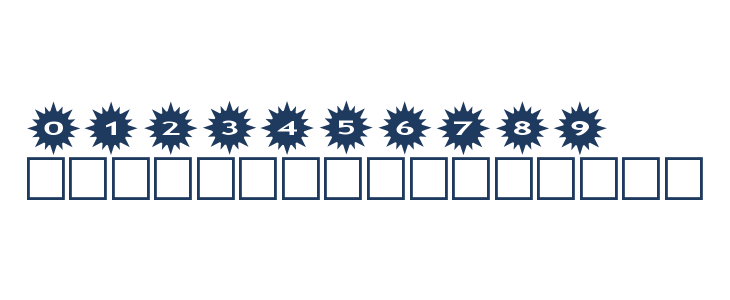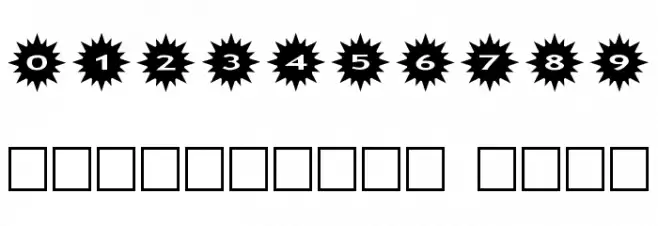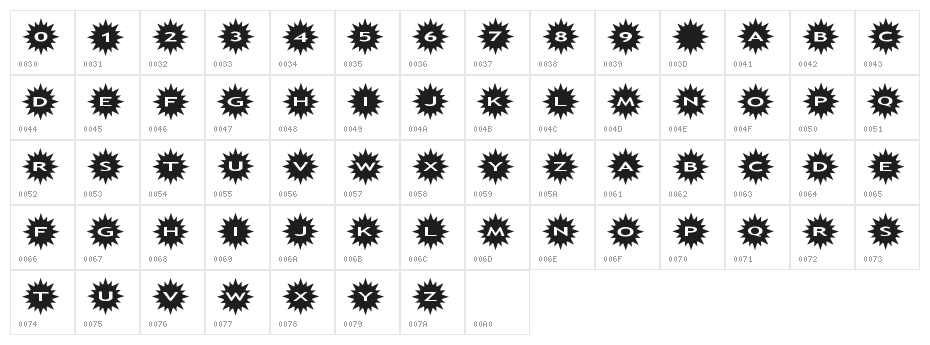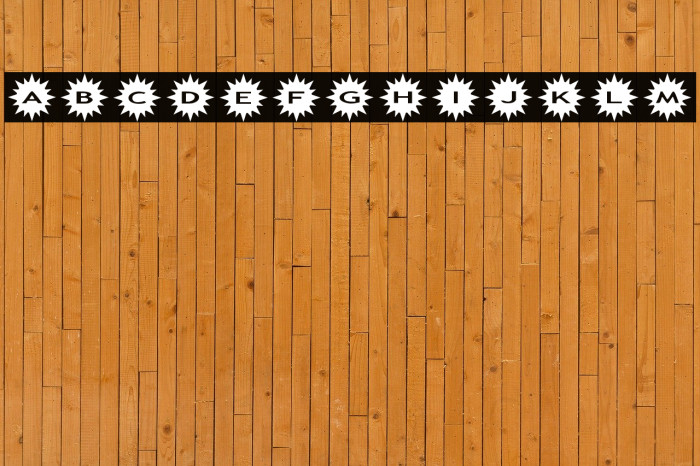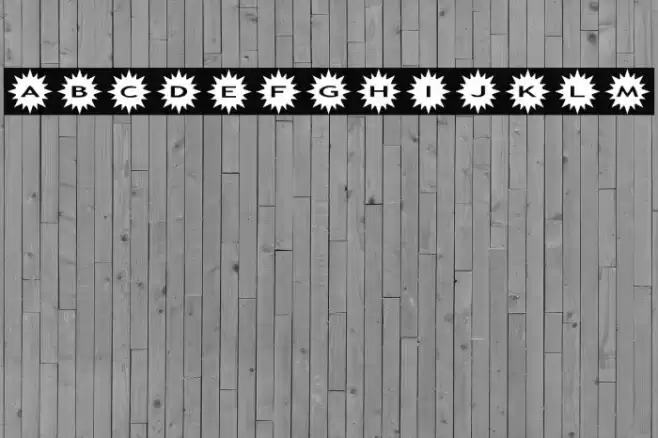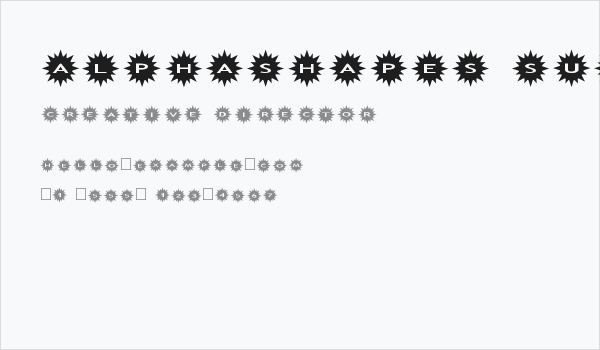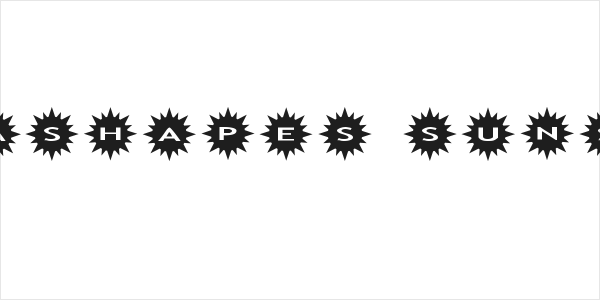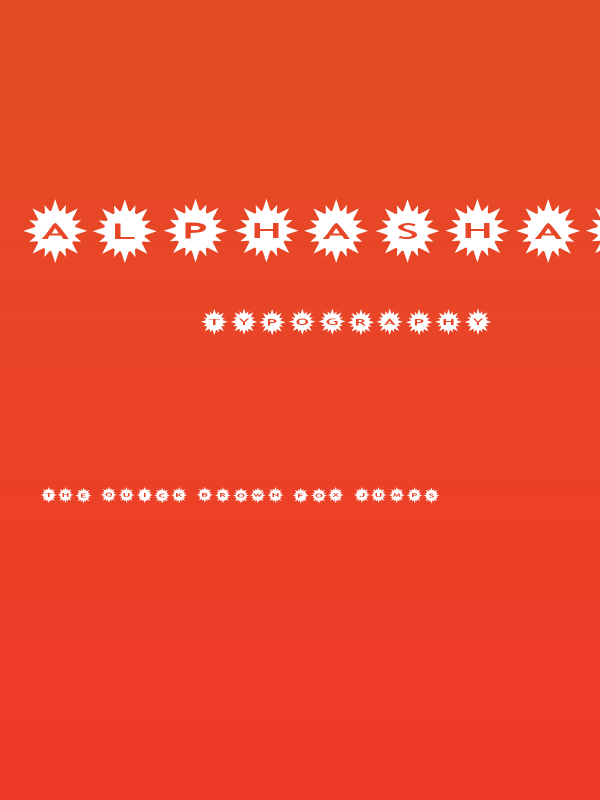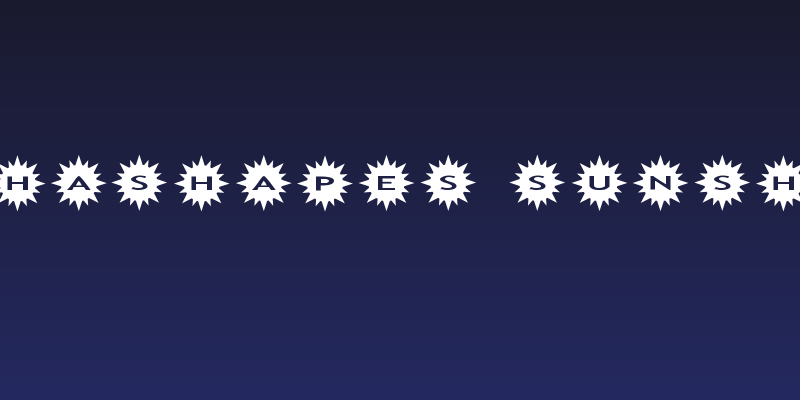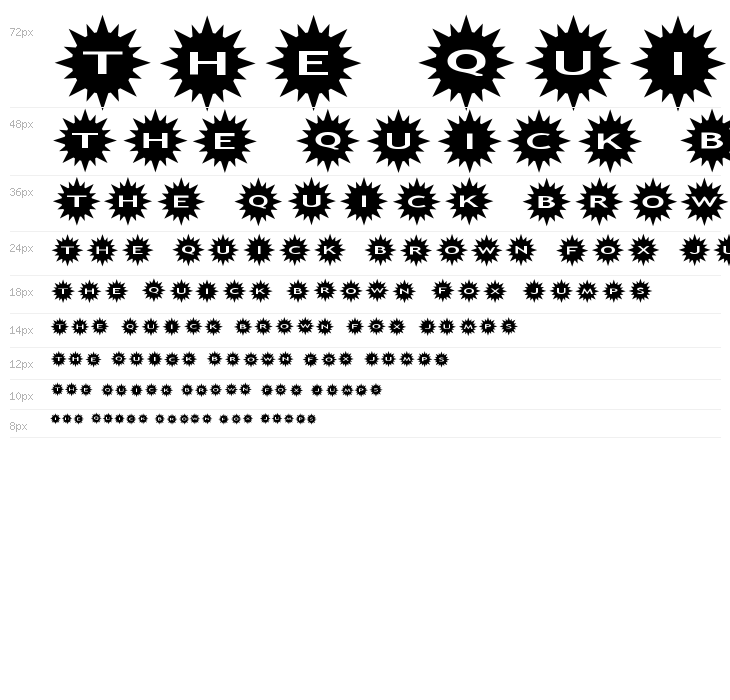
AlphaShapes sunshine Font
AlphaShapes sunshine Description
This font features bold, uppercase and lowercase letters, as well as numbers, each encased in a distinctive spiky, sunburst shape. The characters are centered within these shapes, creating a unique and eye-catching design. The boldness of the letters ensures high visibility, making it suitable for attention-grabbing projects. The uniformity of the sunburst shapes provides a consistent and cohesive look across all characters, while the bold, black color adds to its striking appearance. This font is ideal for creative and playful designs, offering a fun and dynamic aesthetic.
| Proposed Projects | Perfect for children's book covers, playful posters, event invitations, or any project requiring a fun and dynamic look. |